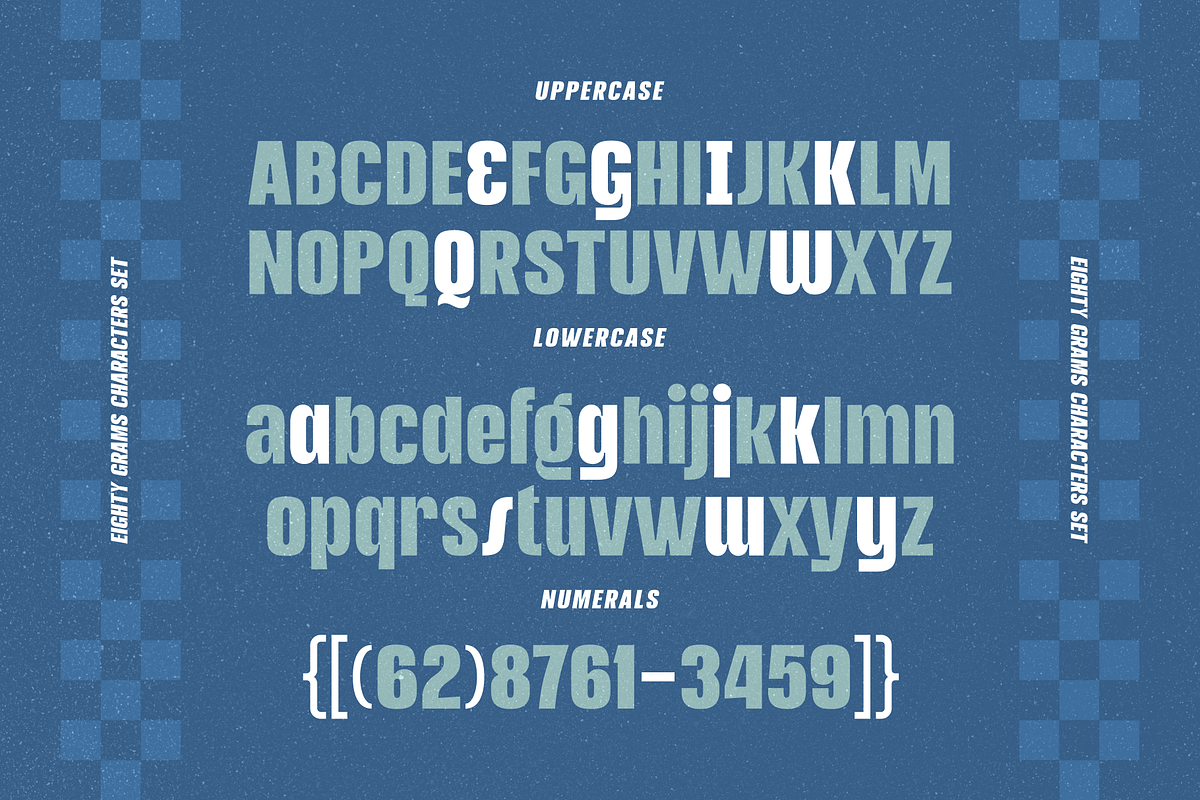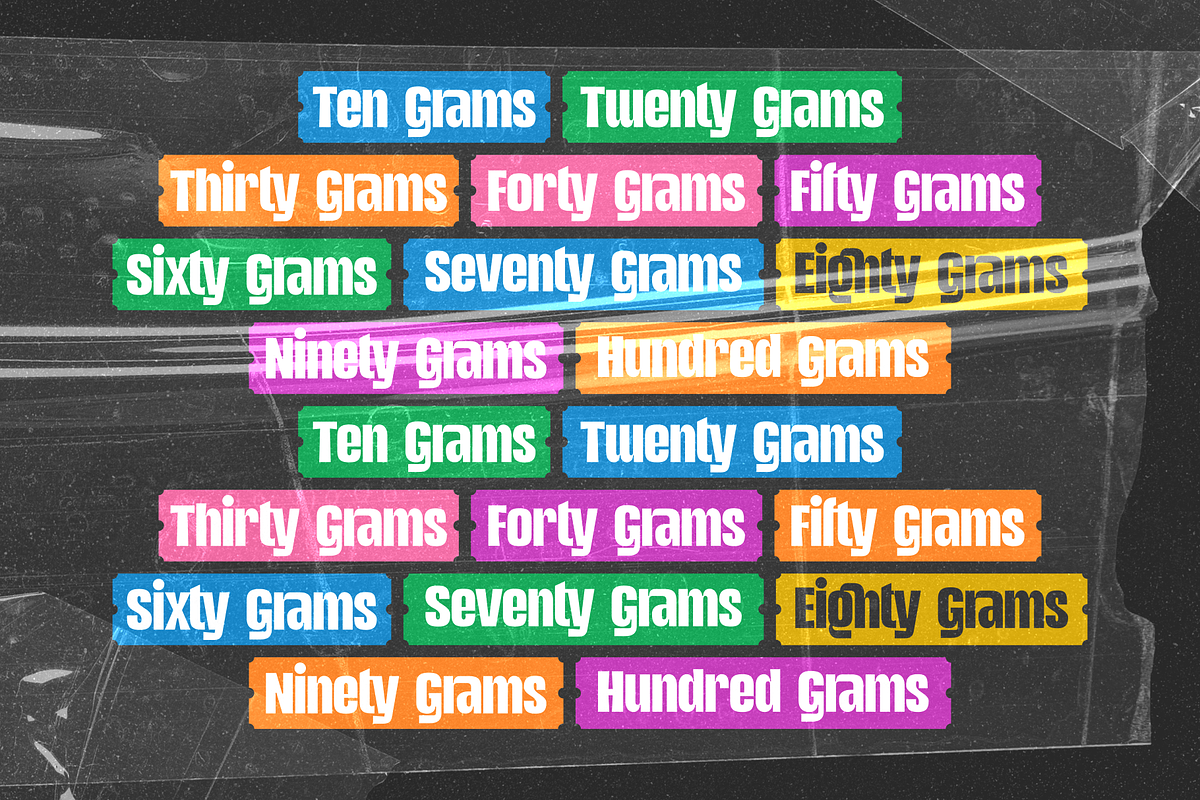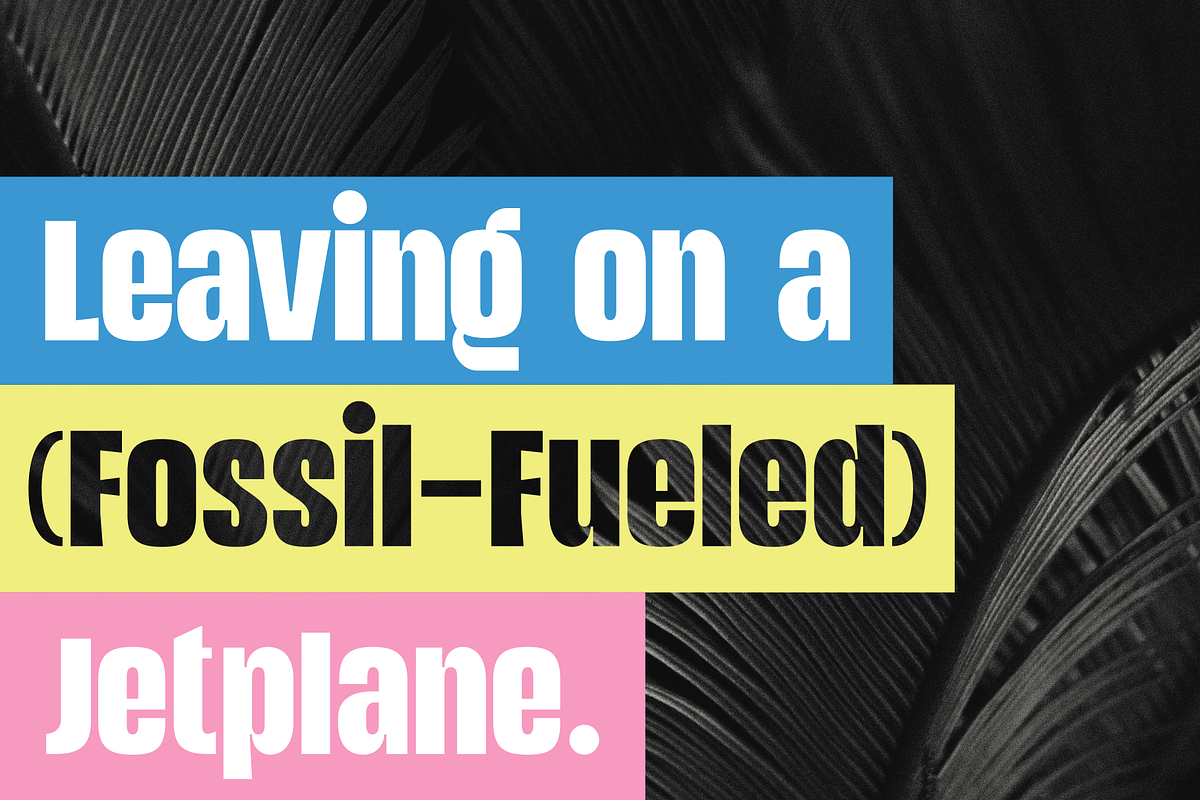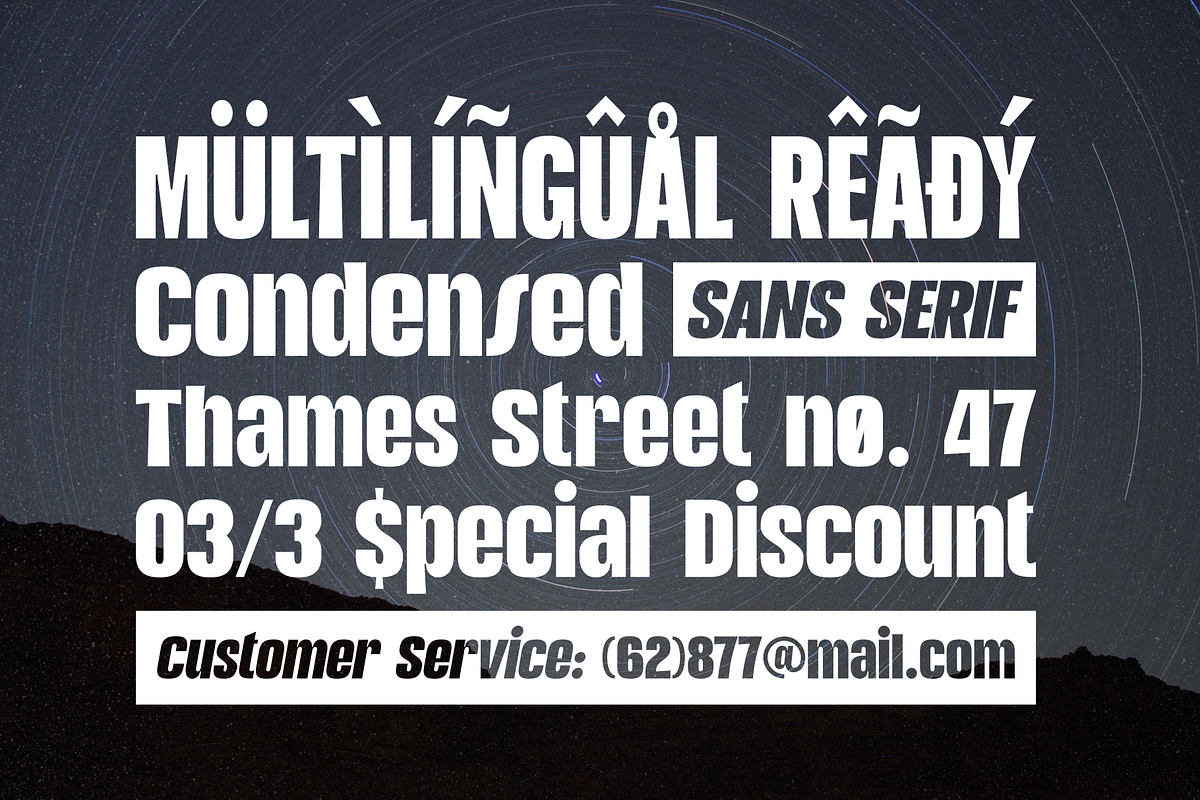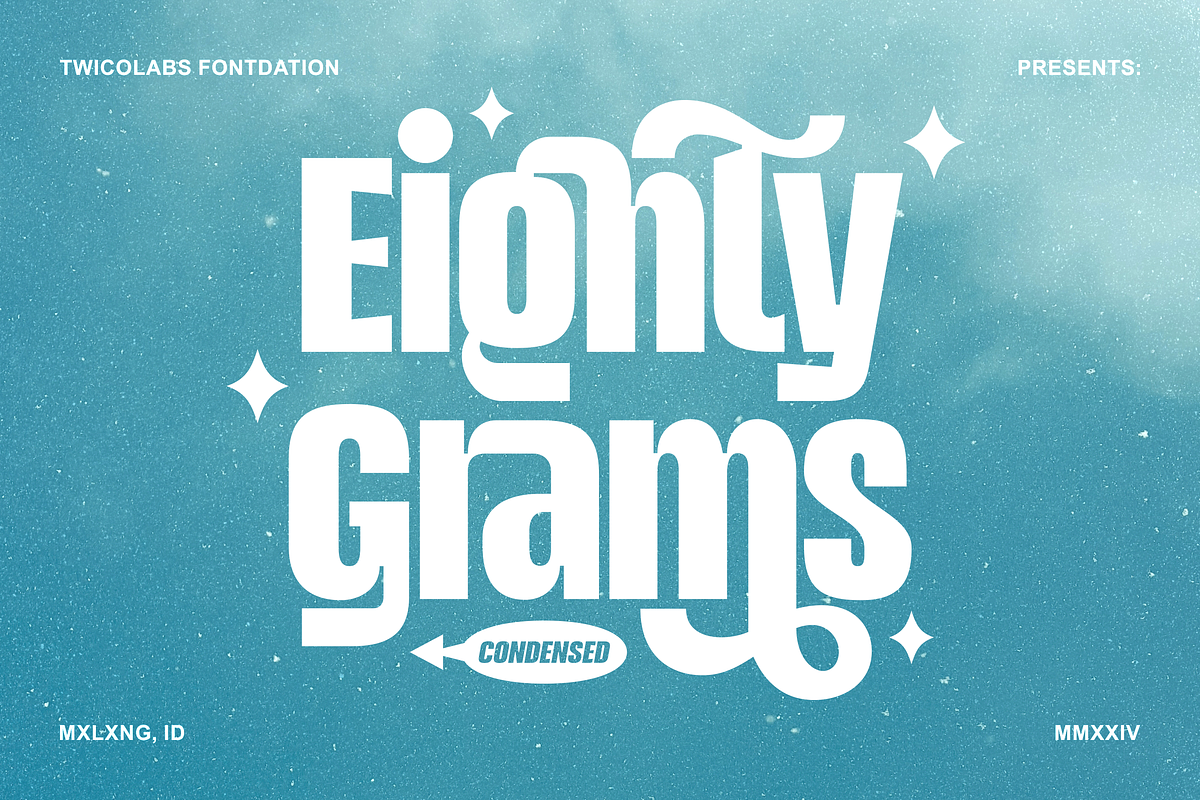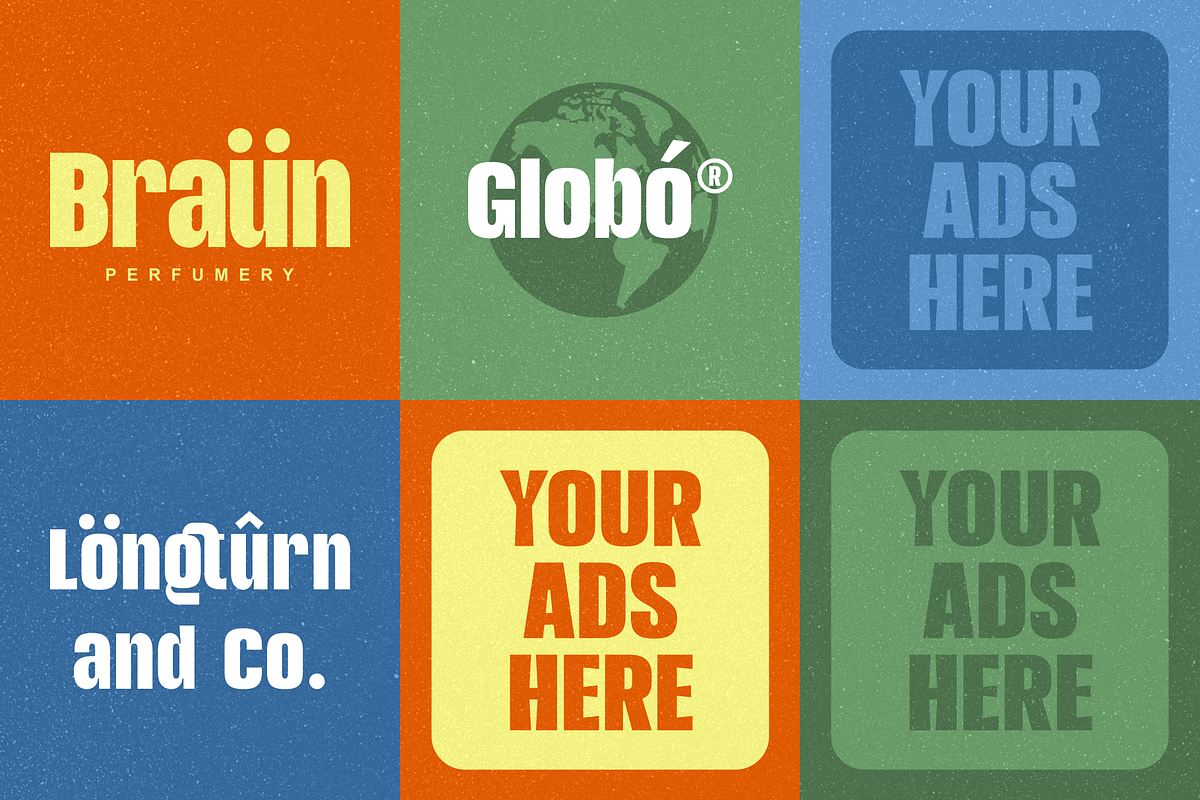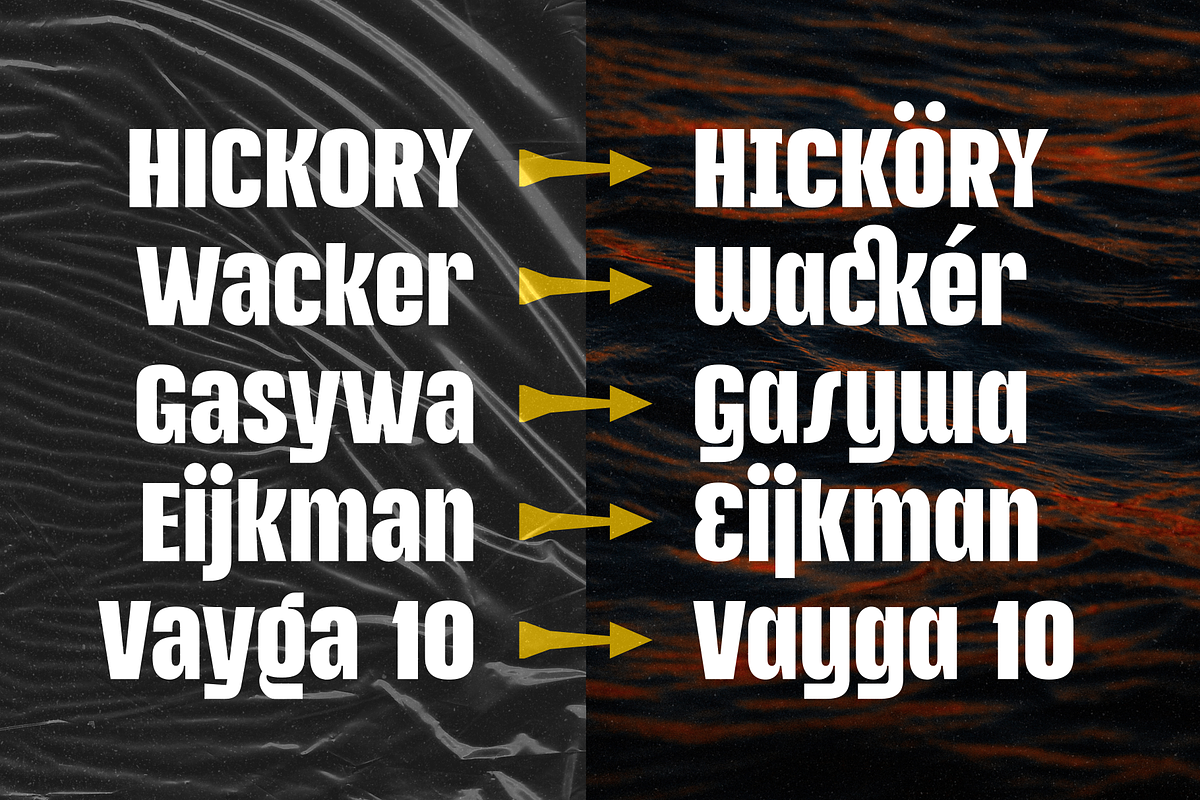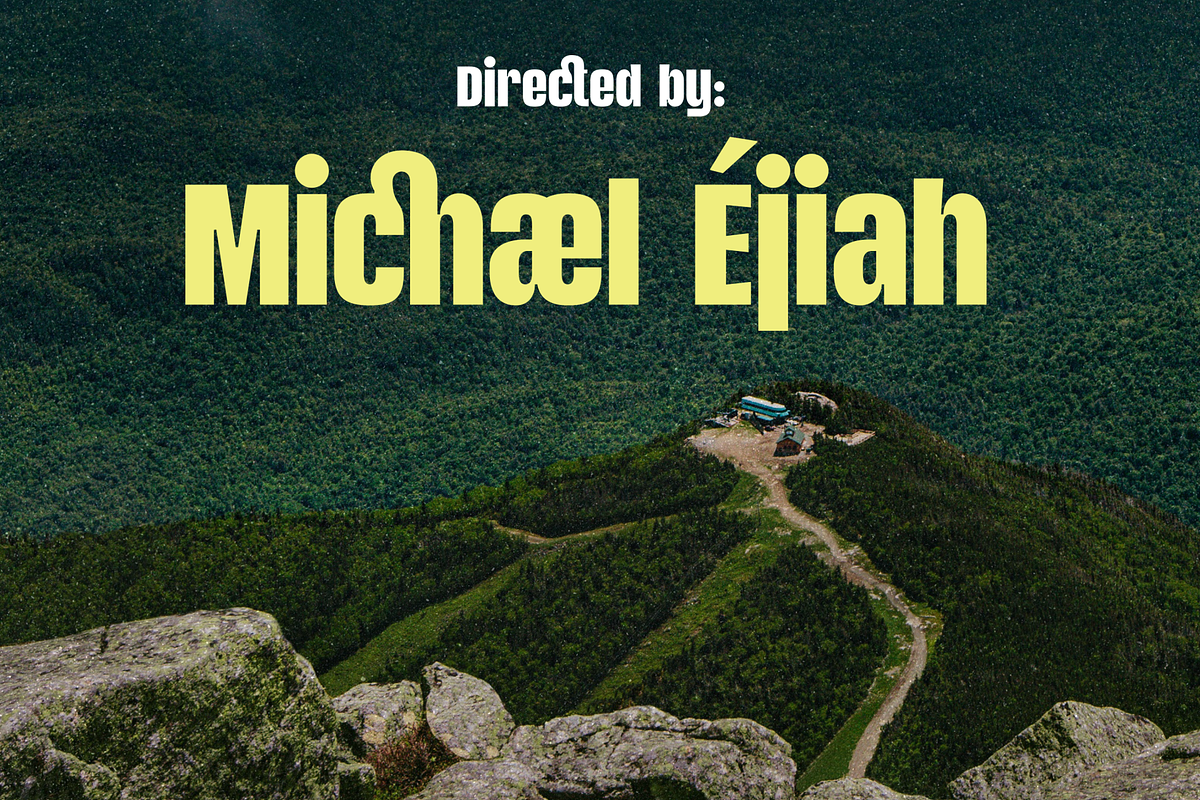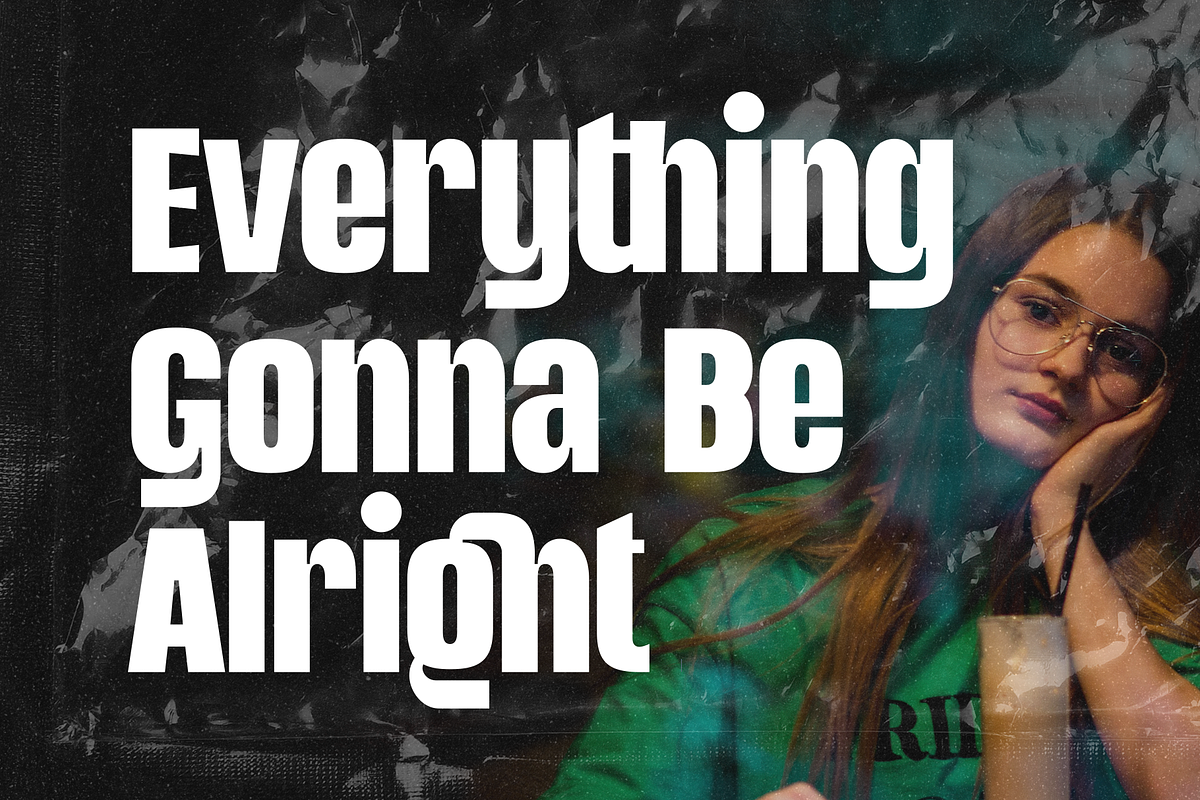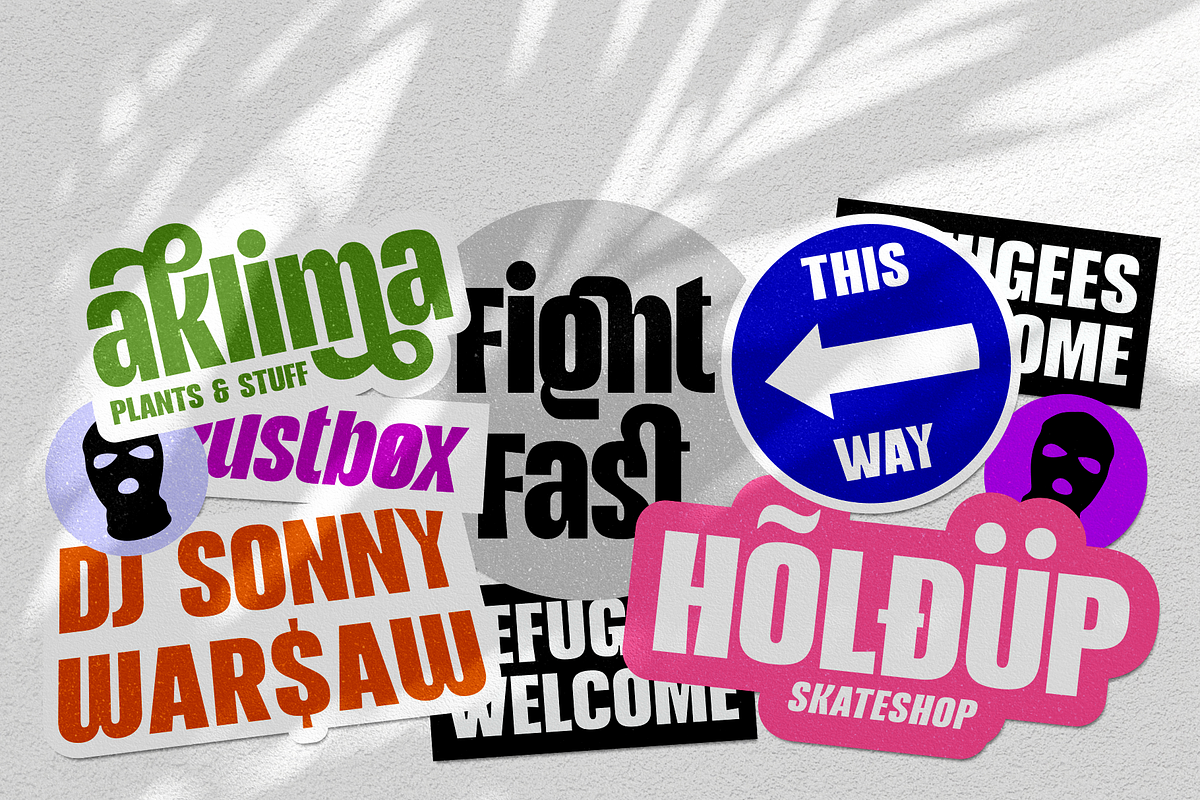
Eighty Grams | Condensed Sans
Inspired by the high letters personality used in classic/vintage advertisements (mostly headlines), we now comes up with a new font; Eighty Grams. Digitally crafted with a bit touch of modernity, to make this typeface still relevant with latest design standard. Also explore the alternate and ligature characters to make your letter combinations experience more playful! Suits best for design that need a condensed and big striking letters as a main point, such as: logo/branding, headline, posted, quote, and many more.
- Standard characters, numerals, punctuations, alternate & stylistic characters, LOTS of ligatures (OpenType Standard encoding),
- Available in multilingual languages, e.g : Afrikaans, Albanian, Catalan, Croatian, Czech, Danish, Dutch, English, Estonian, Finnish, French, German, Hungarian, Icelandic, Italian, Lithuanian, Maltese, Norwegian, Polish, Portuguese, Slovenian, Spanish, Swedish, Turkish, Zulu, etc),
- Coming hot in two styles: Regular and Italic,